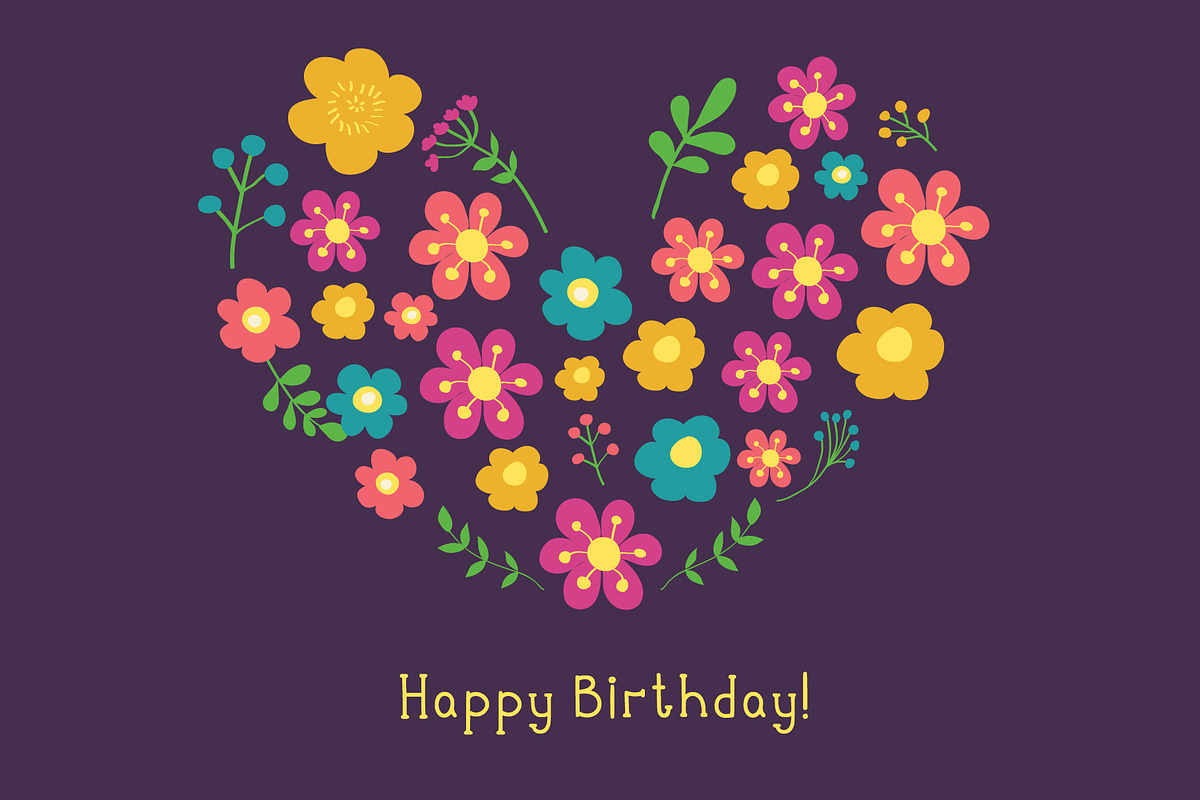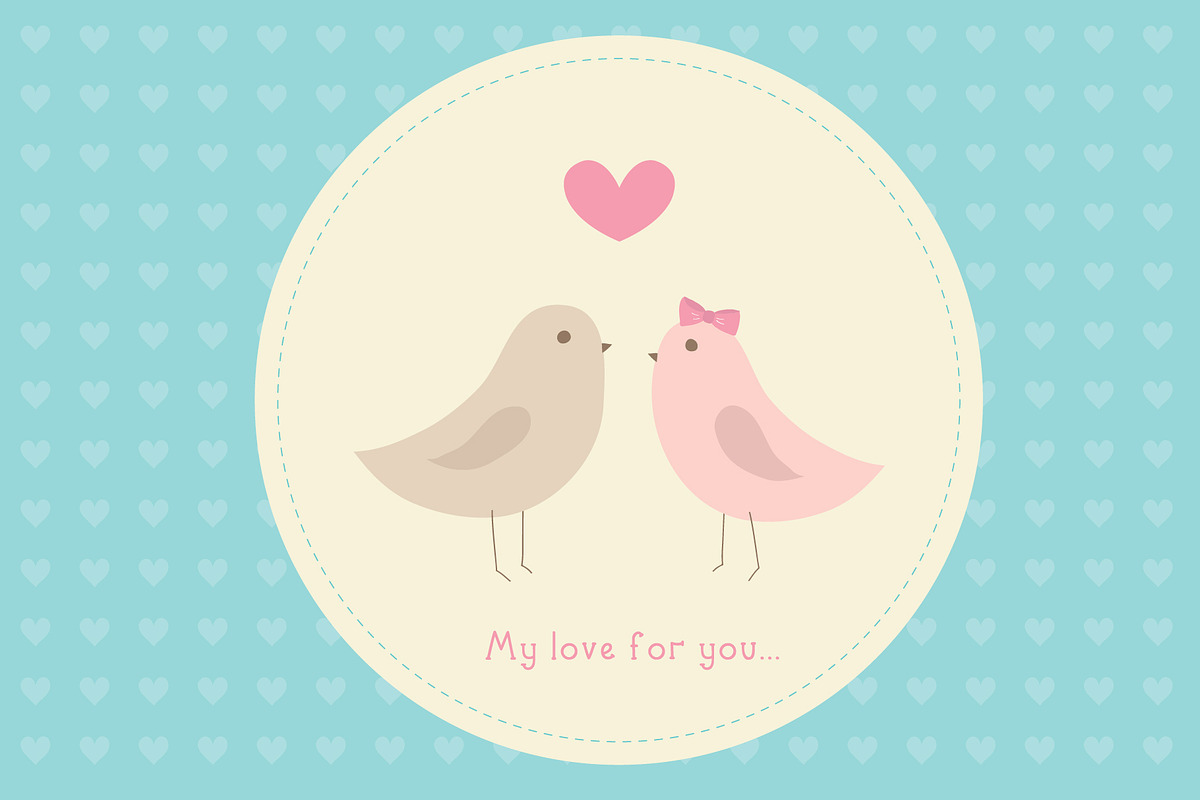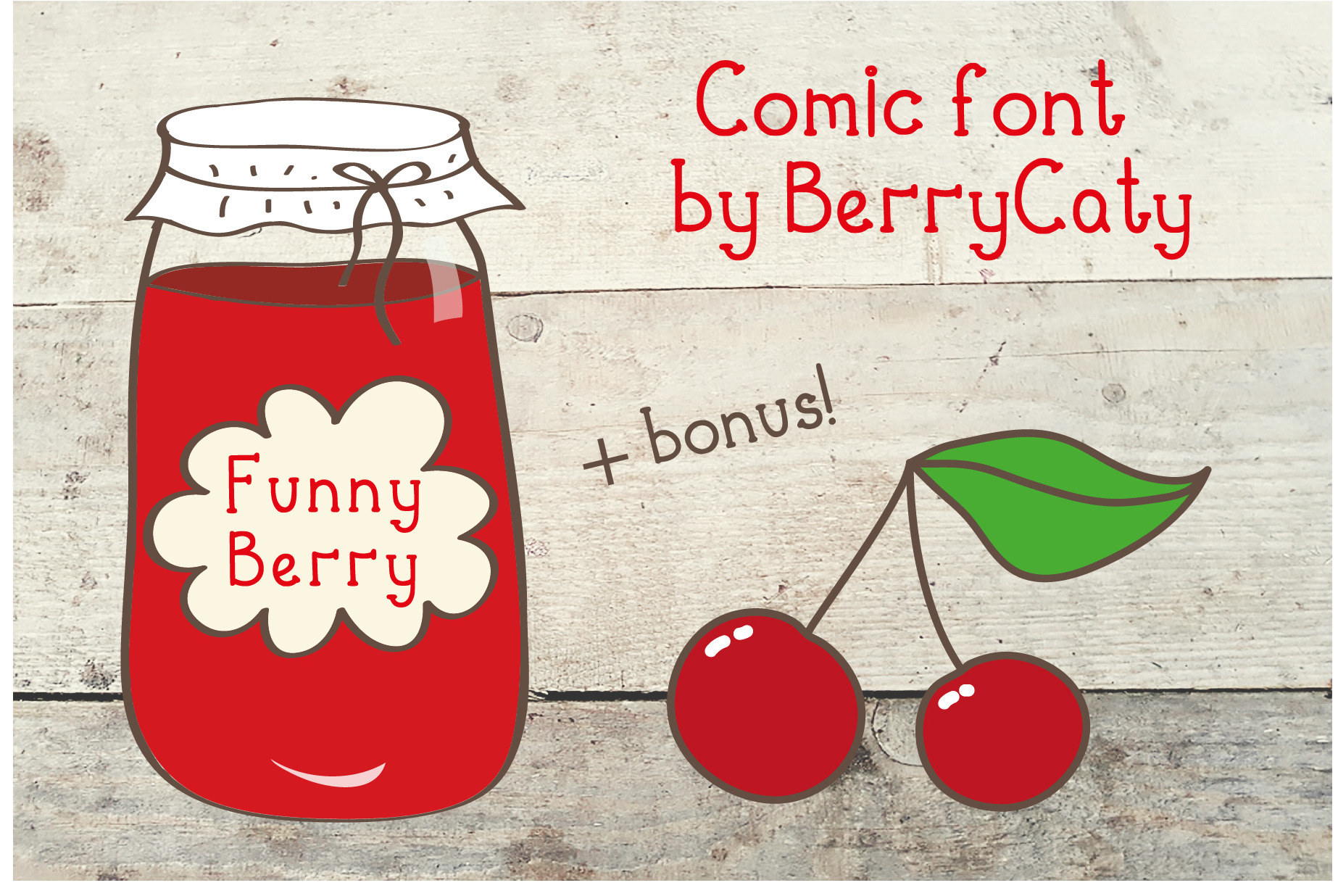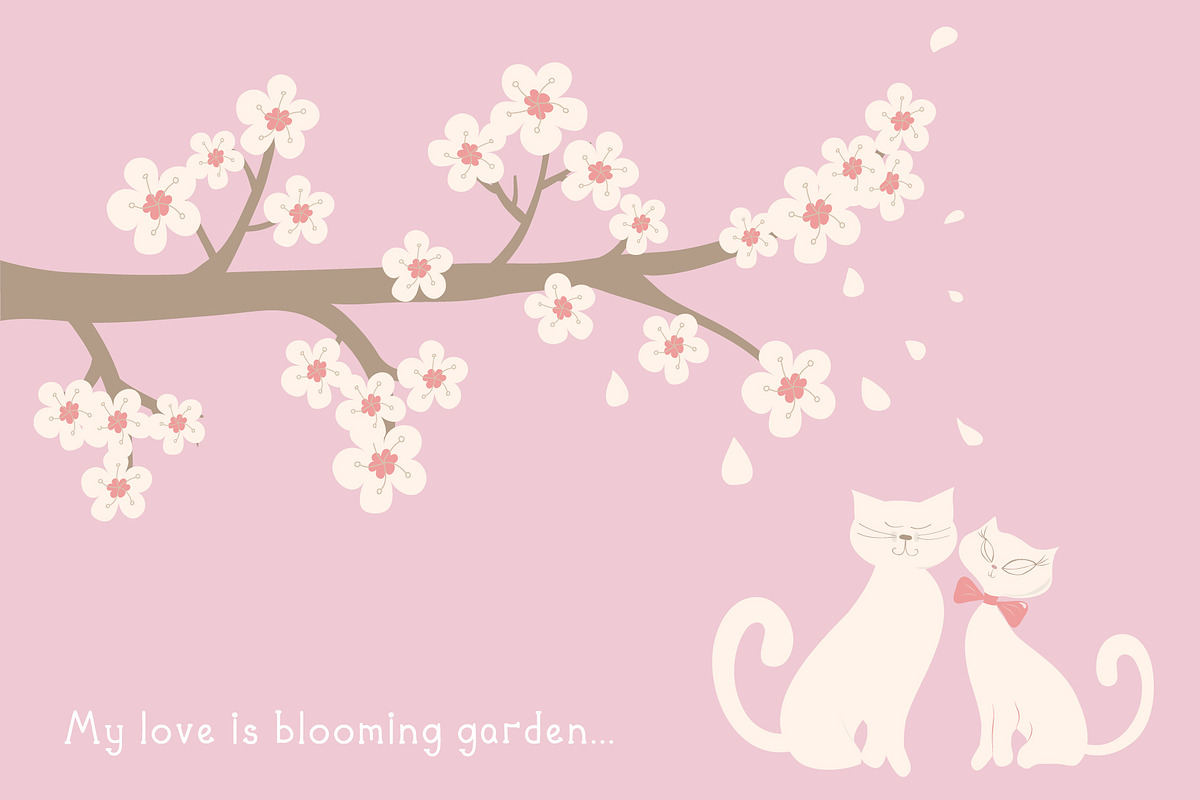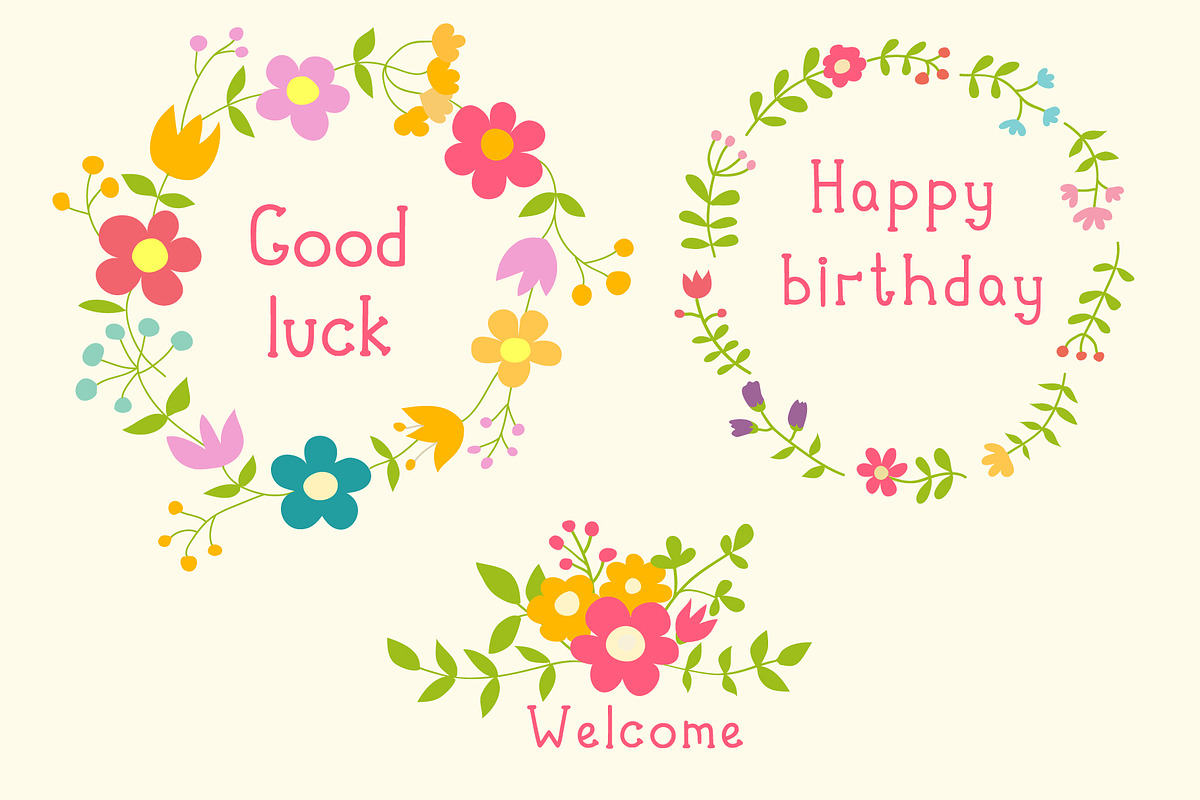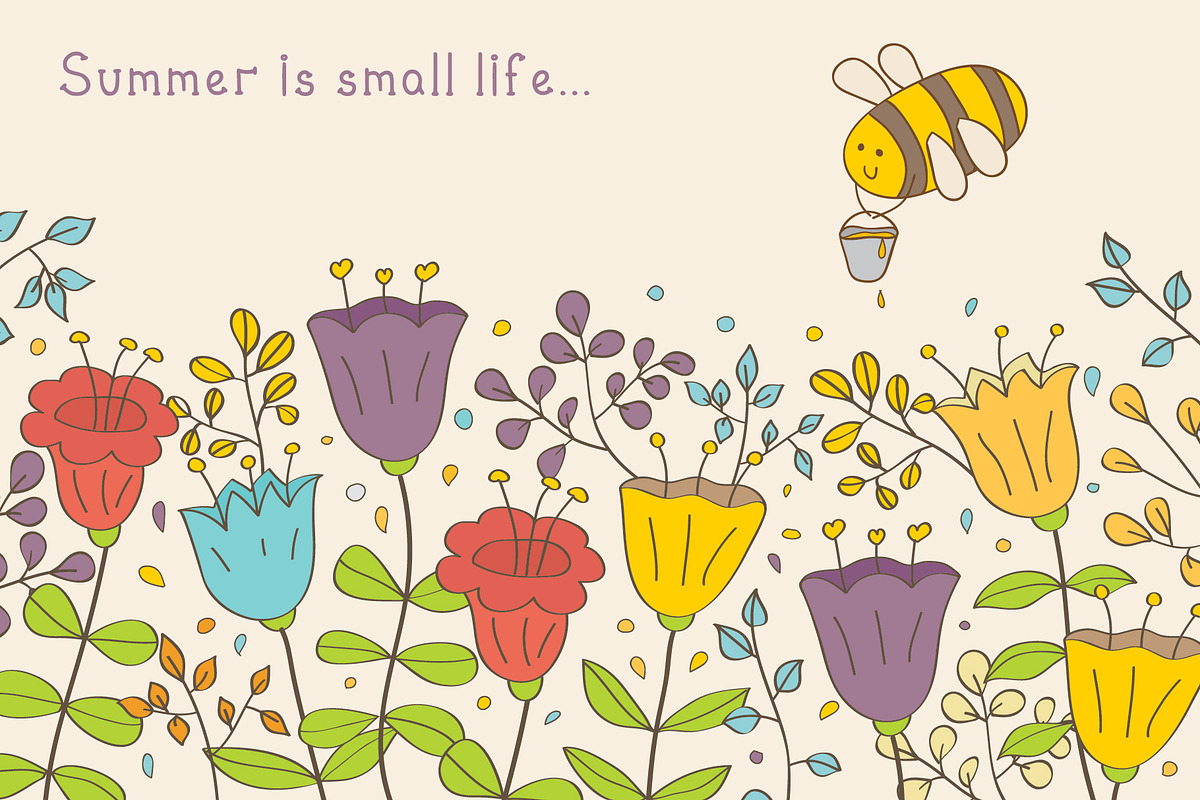
Funny Berry font
Comic handlettered font - FunnyBerry!
Font include: letters, punctuation marks, numerals.
Can be used for poster, postcard, invitation, scrapbooking, logo, celebration stuff like wishes cards, name cards. As BONUS - ready examples of cards!